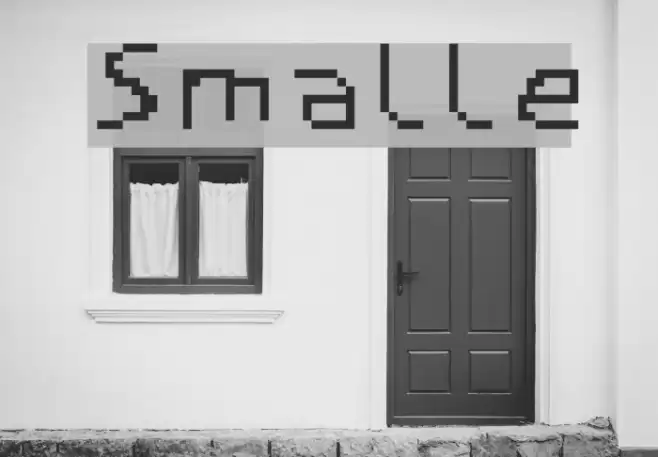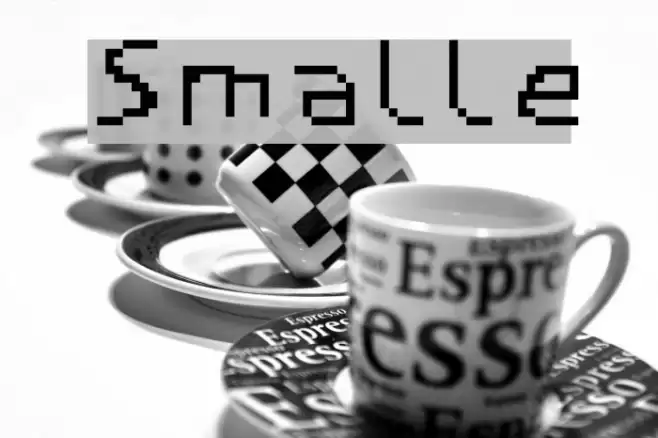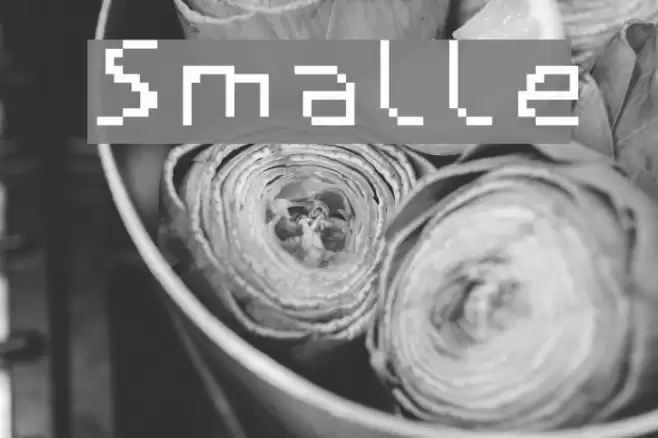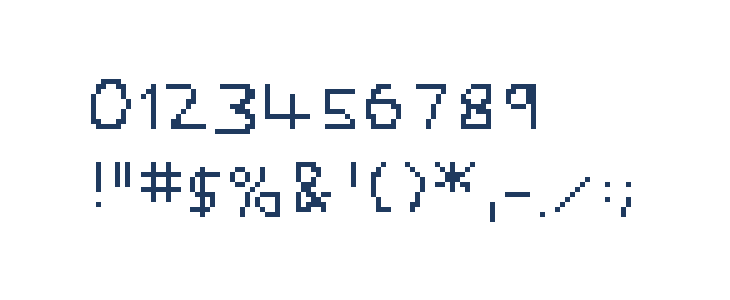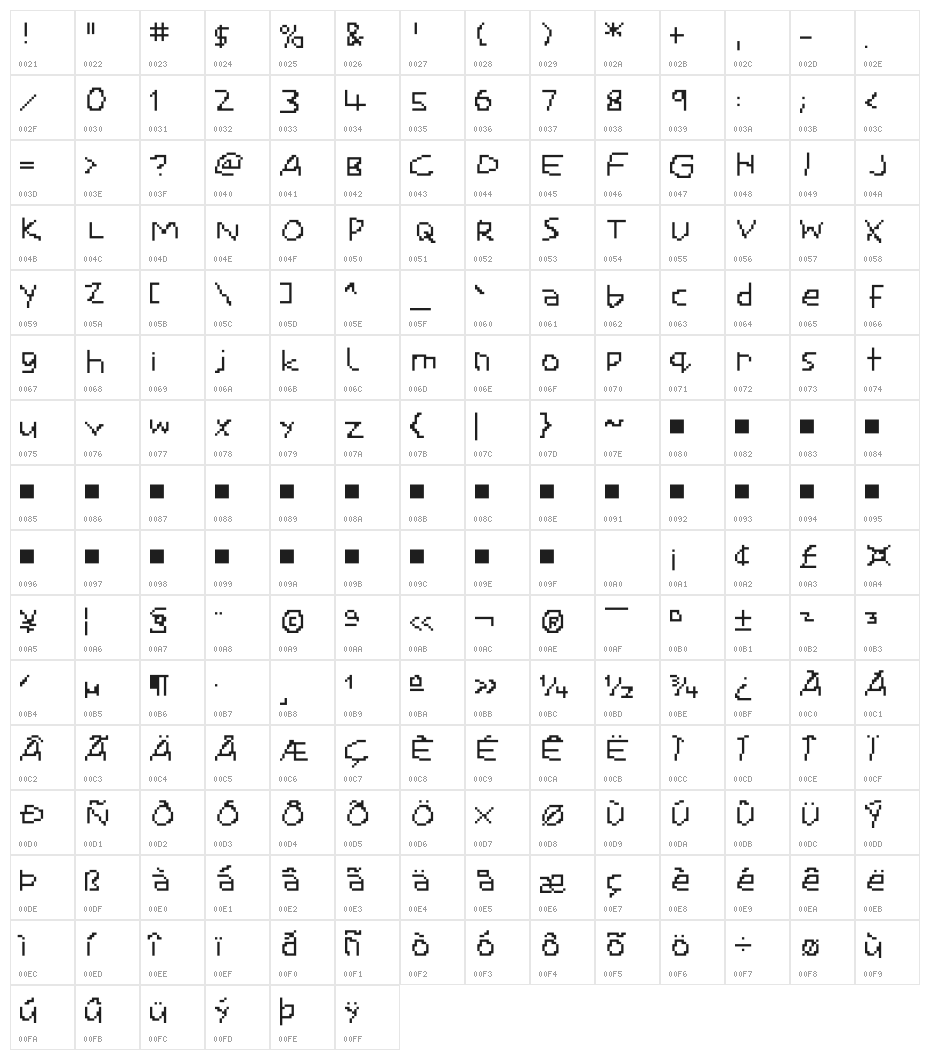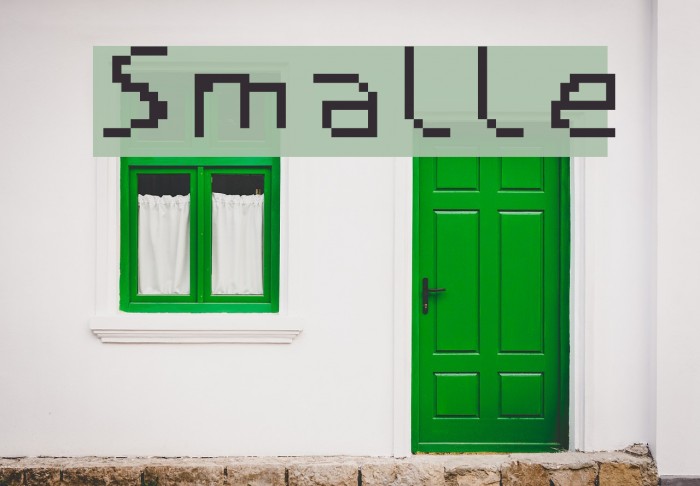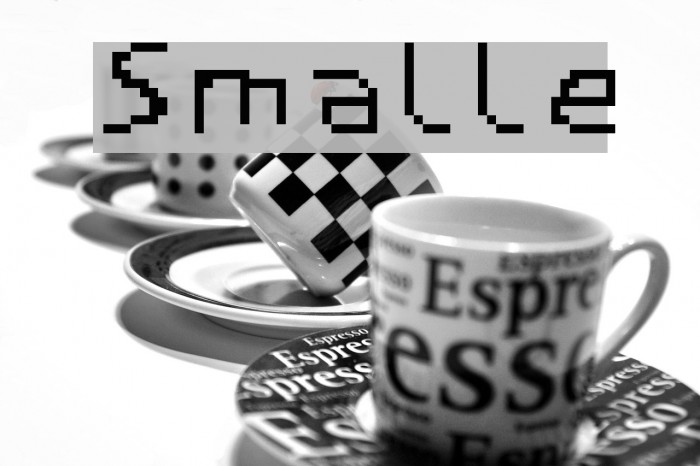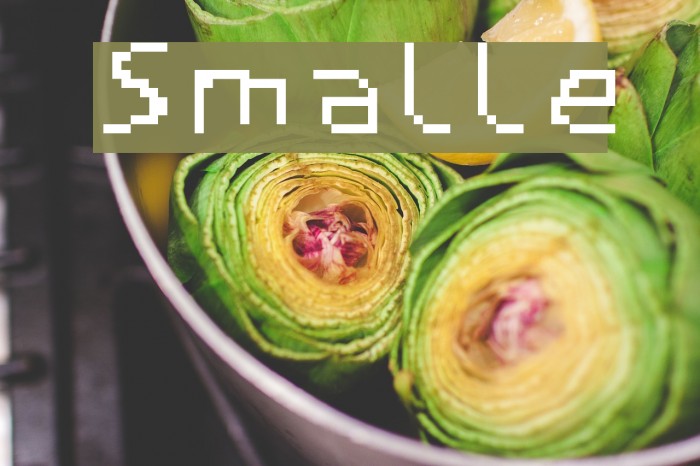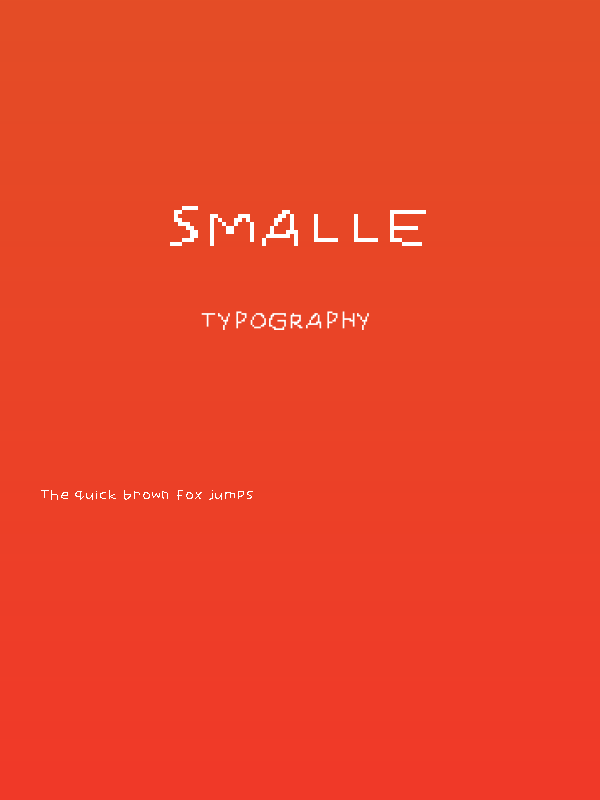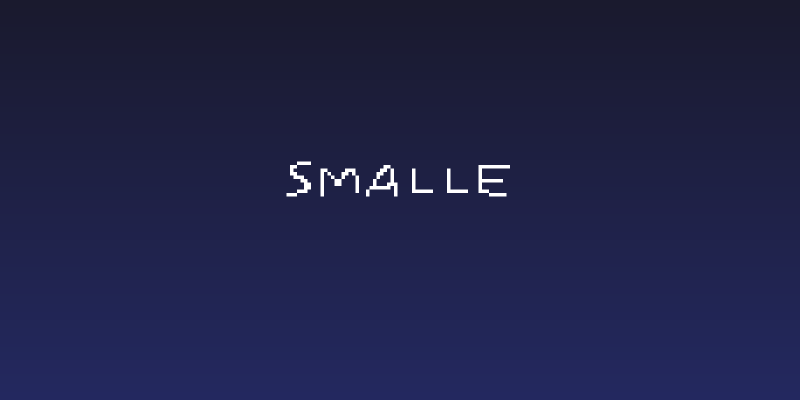
Smalle Font
Smalle Description
This font features a pixelated, blocky design reminiscent of early digital displays or retro video games. Each character is constructed with a grid-like precision, giving it a distinctly digital and geometric appearance. The uppercase and lowercase letters maintain a consistent height, contributing to a uniform look. The numerals and special characters follow the same pixelated style, ensuring visual coherence across all glyphs. The font's simplistic and nostalgic design makes it ideal for projects that aim to evoke a sense of retro technology or digital minimalism.
A pixelated, retro-style font with a digital, blocky appearance from Uncategorized fonts.
- Proposed Projects: Ideal for retro video game designs, digital art projects, tech-themed posters, and any creative work that requires a nostalgic digital aesthetic.
- Overall Style: Retro, Digital